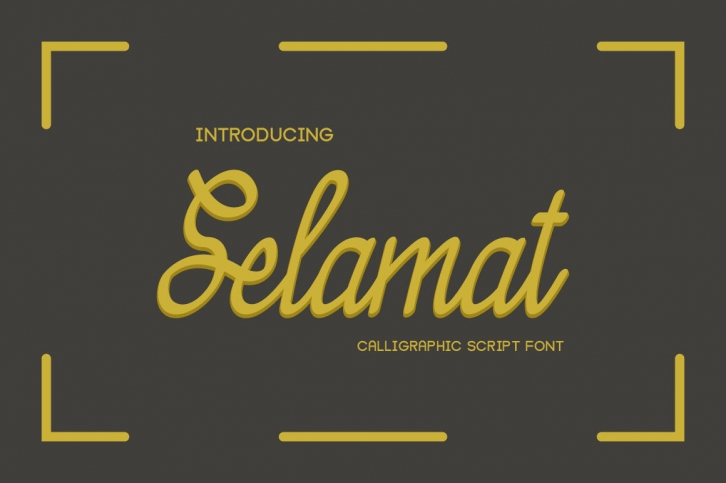
Selamat is a friendly and Elegant font with a unique style. Fall in love with its charming appearance!
for you who needs a typeface for headline, logotype, apparel, invitation, branding, packaging, advertising etc.
This typeface is comes in uppercase, lowercase, punctuation, numerals, stylistic set alternate, ligatures, also support multilingual.